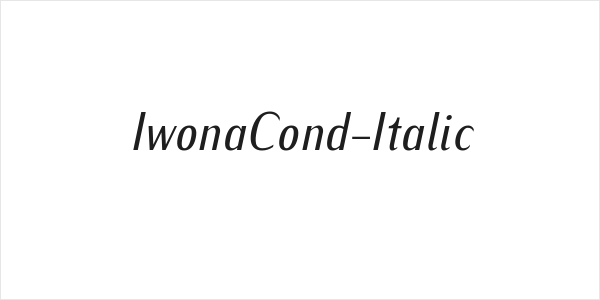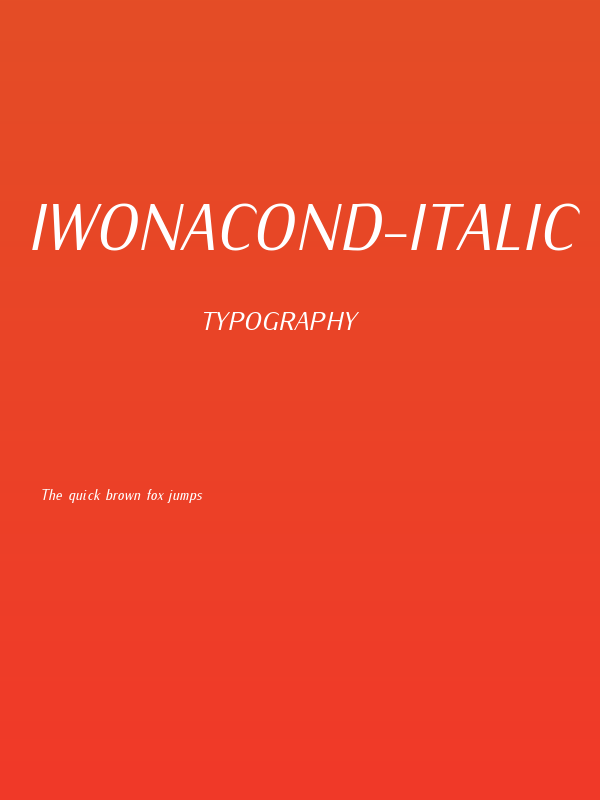
IwonaCond-Italic Font
IwonaCond-Italic Description
This font features a sleek and elegant italic style with a condensed width, giving it a sophisticated and modern appearance. The characters are slightly slanted, enhancing the dynamic and fluid nature of the typeface. It maintains a consistent stroke width, contributing to a clean and professional look. The uppercase letters are tall and commanding, while the lowercase letters are well-proportioned, making it versatile for various design applications. The numerals are clear and legible, and the special characters are distinct, ensuring readability across different contexts.
| Proposed Projects | Ideal for branding, editorial design, fashion magazines, and elegant invitations. |